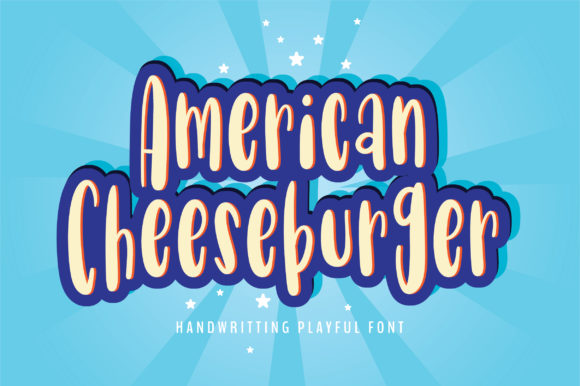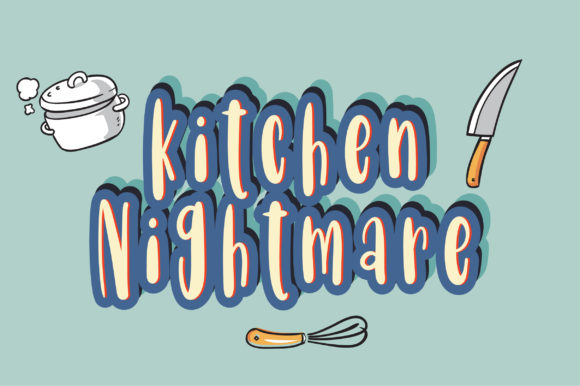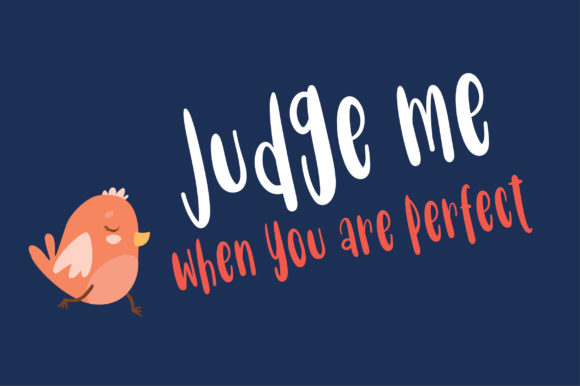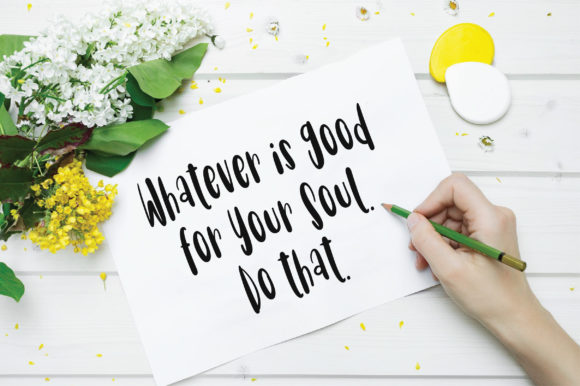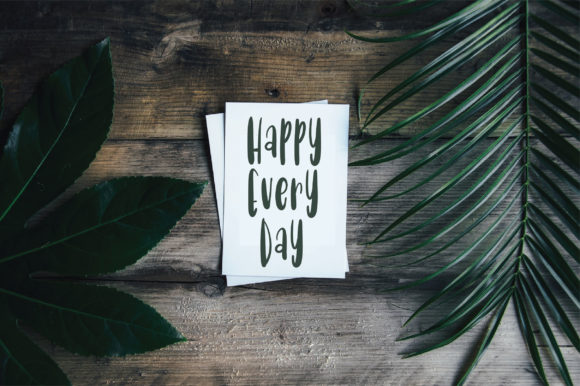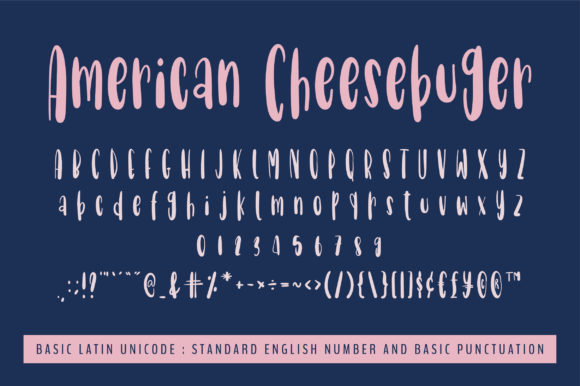
AmericanCheeseburger Font
About AmericanCheeseburger Font
AmericanCheeseburger is a cheerful and friendly handwritten font. It is perfect for illustrations, posters, logos, book covers and much more!
Include this font in your next project and give it a happy personality.